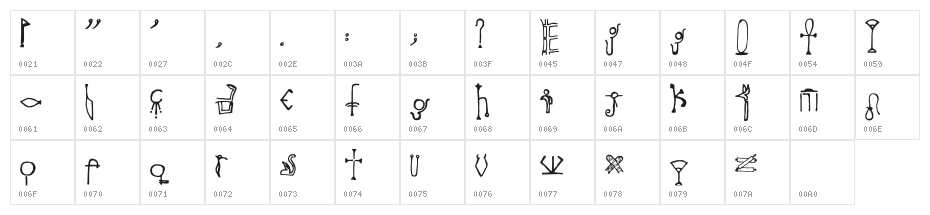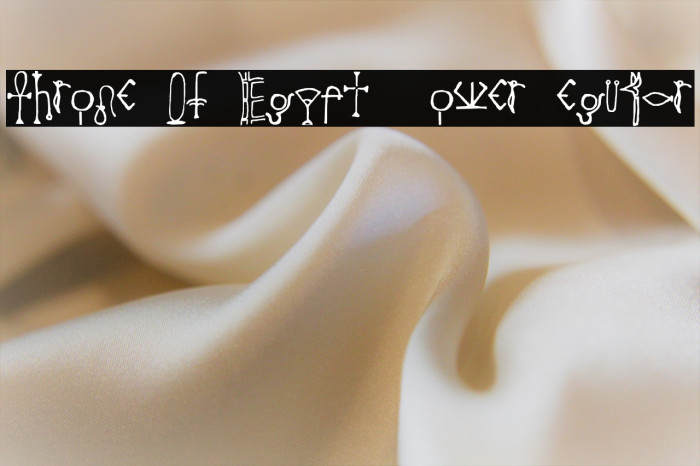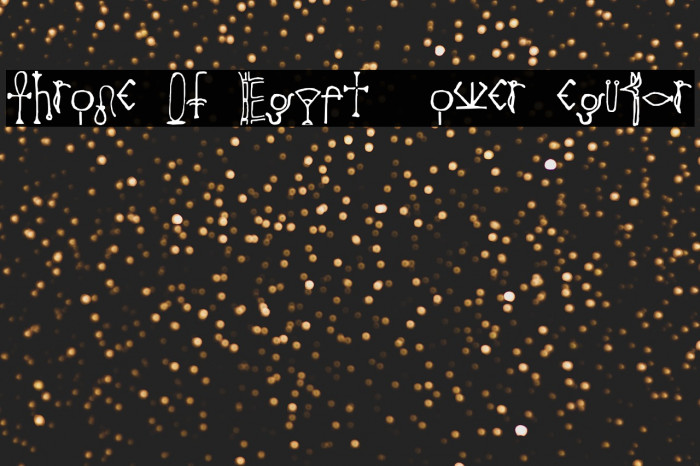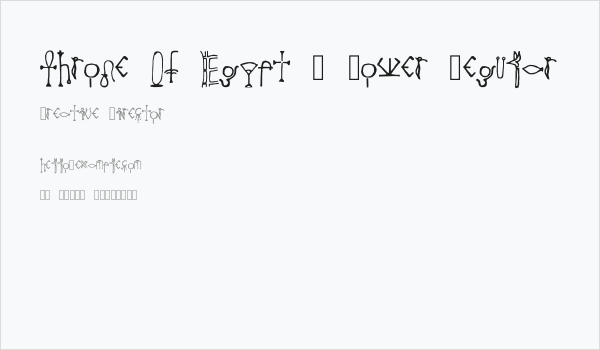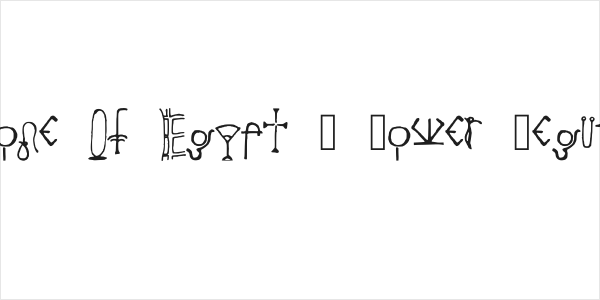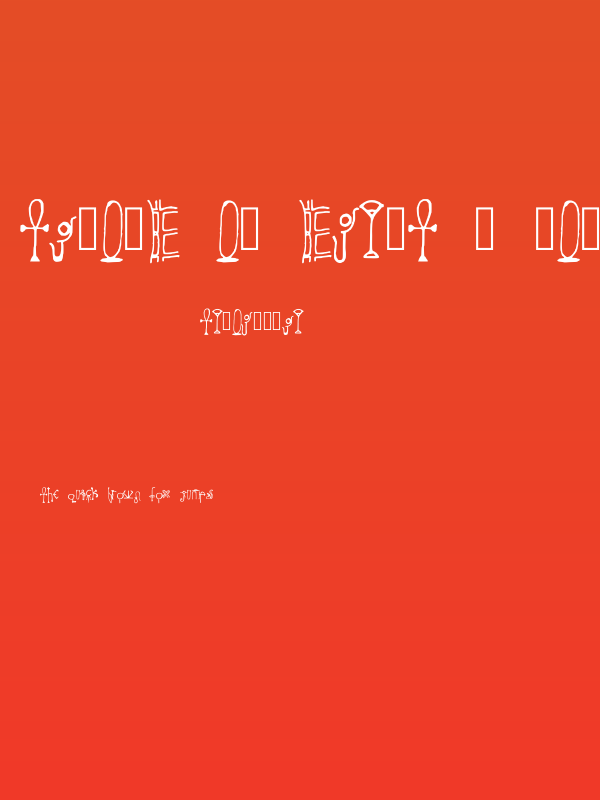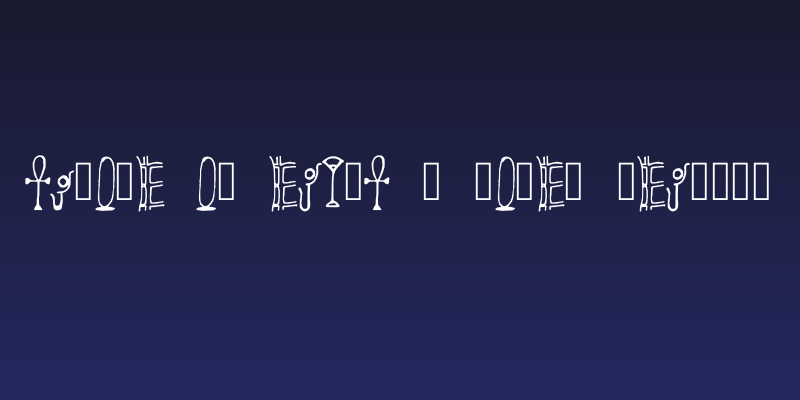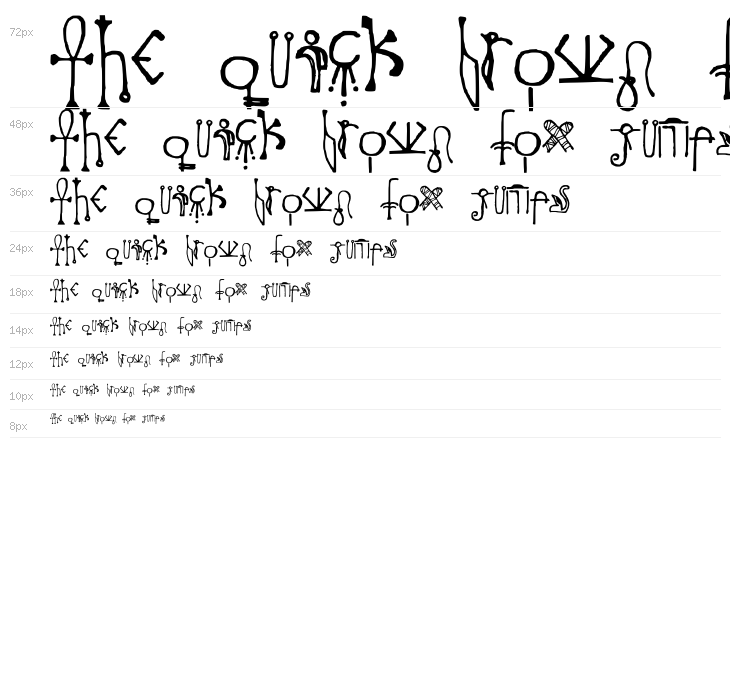
Throne Of Egypt _ Lower Regular Font
Throne Of Egypt _ Lower Regular Description
This font features a unique and artistic design inspired by ancient Egyptian hieroglyphs. Each character is crafted with intricate details, resembling symbols and figures from ancient scripts. The uppercase letters are bold and striking, while the lowercase letters maintain a consistent style with a slightly more delicate appearance. Numbers and special characters follow the same thematic design, adding to the overall cohesive look. The font's distinct style makes it ideal for projects that require a historical or mystical aesthetic.
| Use Case | Logos, Posters, Book Covers |
| Proposed Projects | Ideal for historical-themed designs, fantasy book covers, movie posters, or any project needing an ancient or mystical touch. |